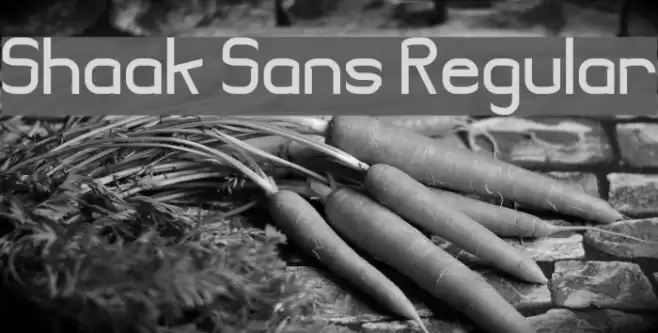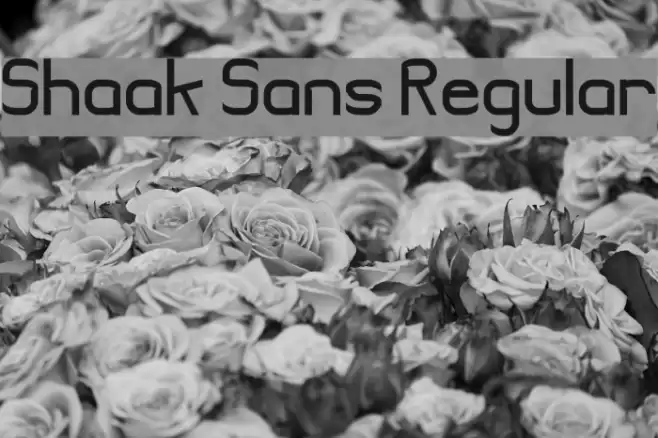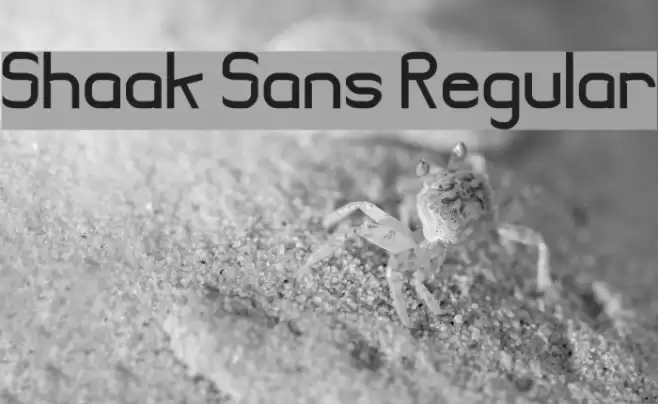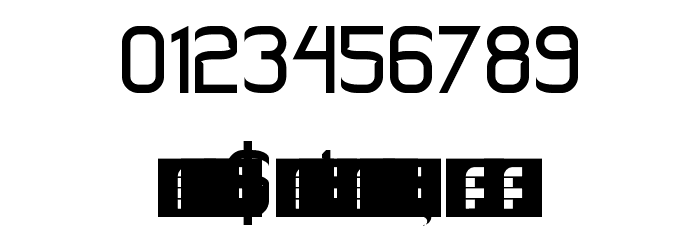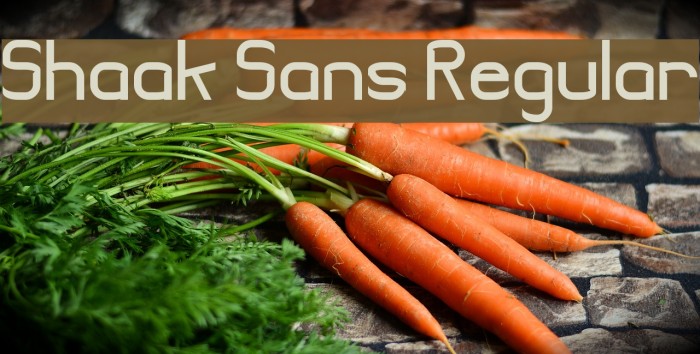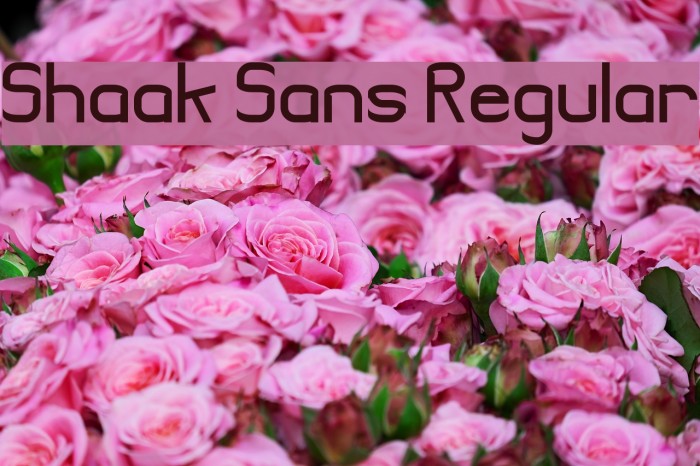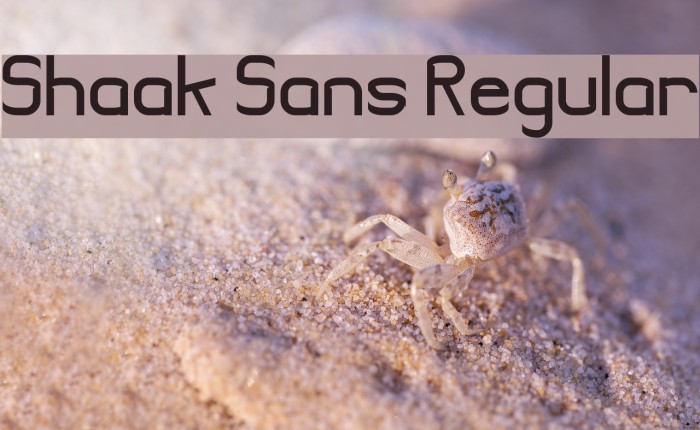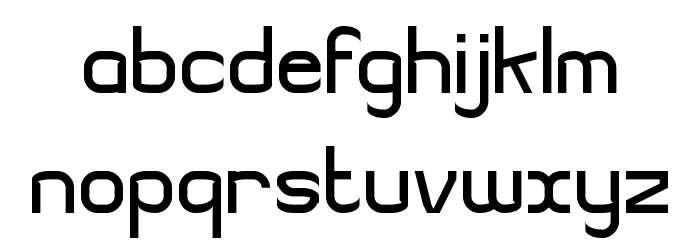
Shaak Sans Regular Font
Shaak Sans Regular Description
This font features a clean and modern sans-serif design with a geometric structure. The characters are well-balanced, with a uniform stroke width that gives it a sleek and professional appearance. The uppercase letters are bold and impactful, while the lowercase letters maintain a consistent style that complements the overall design. The numerals are clear and easy to read, making them suitable for various applications. Special characters are distinct and maintain the font's cohesive look. The font's simplicity and clarity make it versatile for both digital and print media.
A modern, geometric sans-serif font with a clean and professional look from Uncategorized fonts.